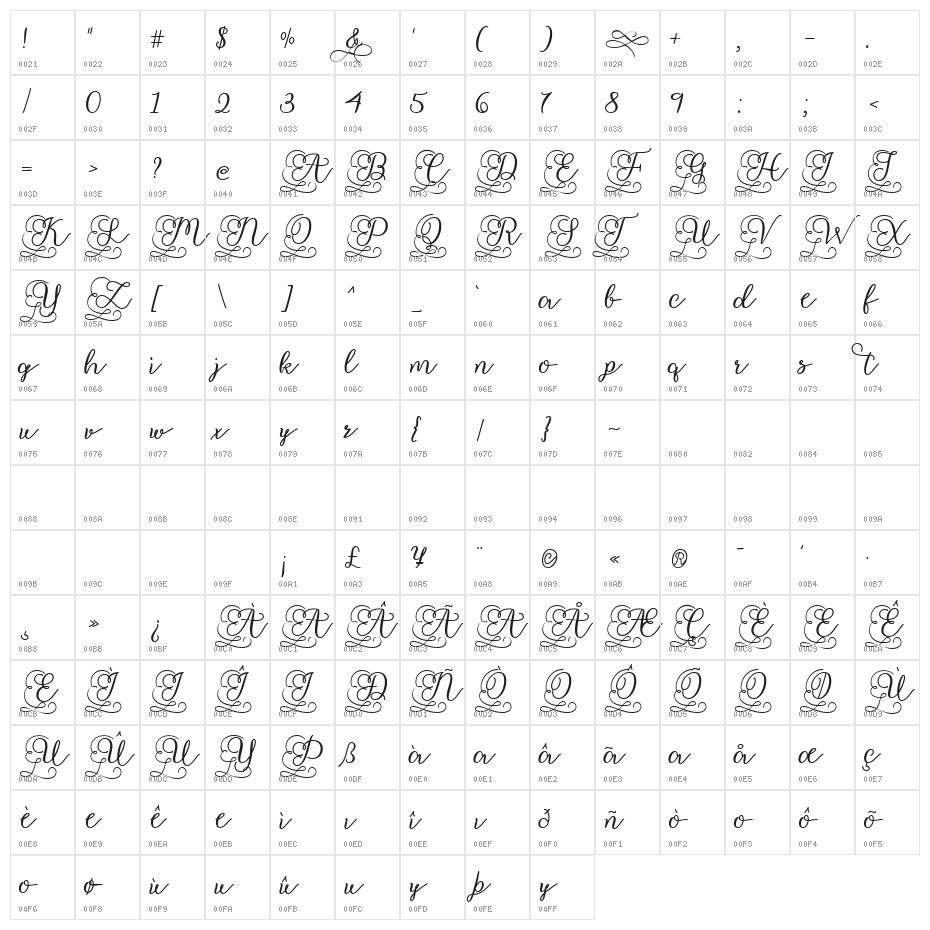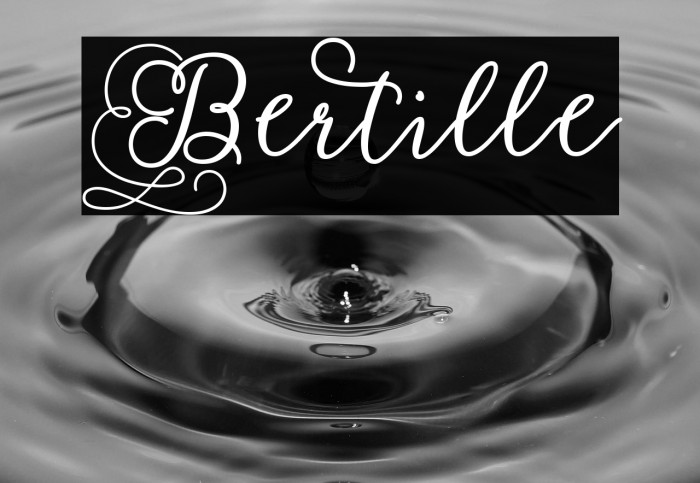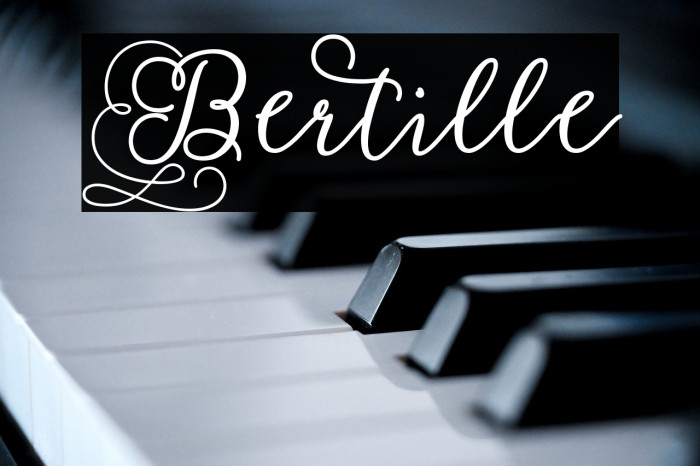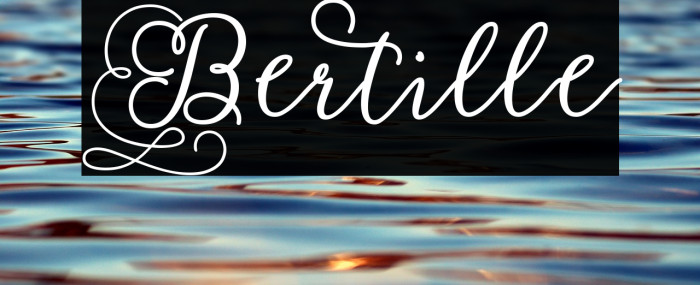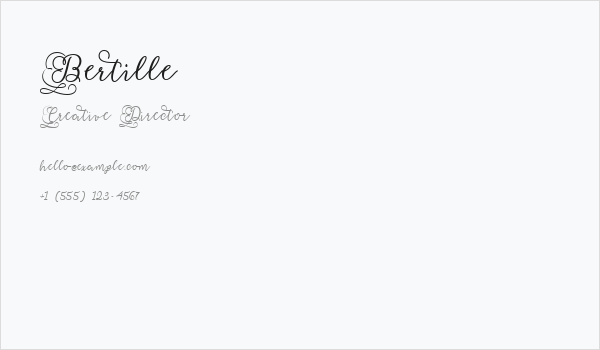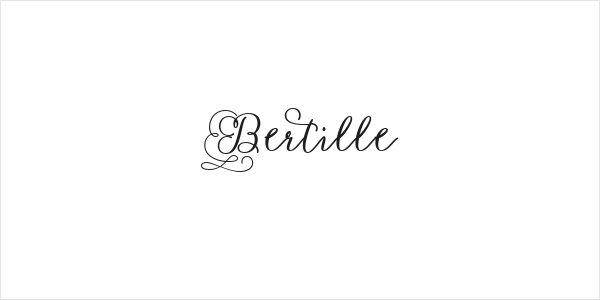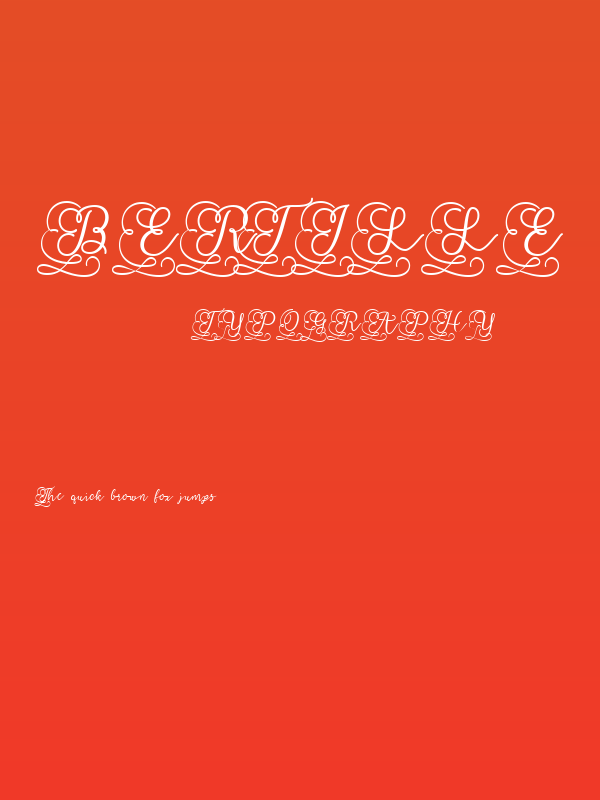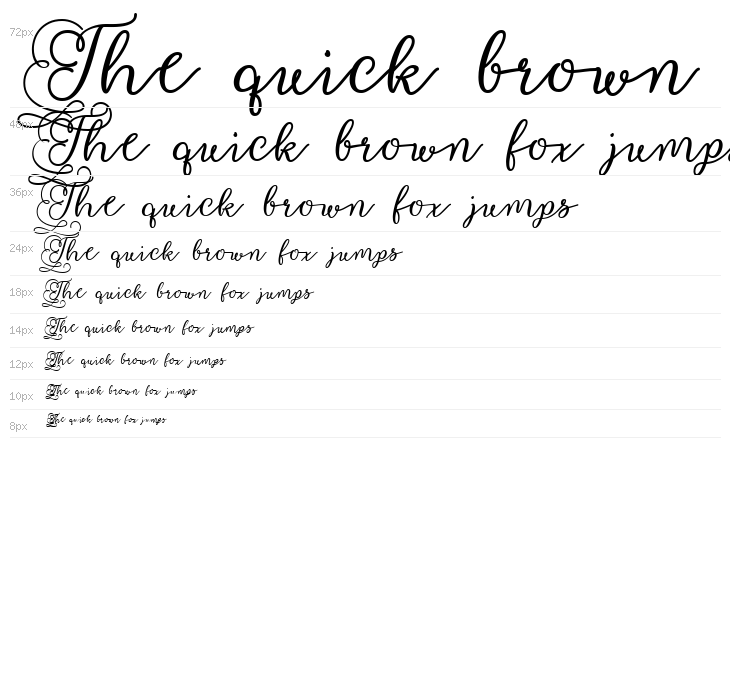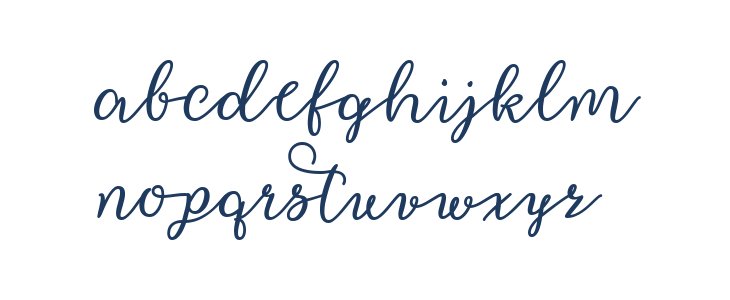
Bertille Font
Bertille Description
This elegant script font features intricate swirls and flourishes, giving it a sophisticated and ornate appearance. The uppercase letters are particularly decorative, with elaborate loops and curves that add a touch of luxury and refinement. The lowercase letters maintain a flowing, cursive style that complements the uppercase, creating a harmonious balance. Numbers and special characters are designed with the same attention to detail, ensuring consistency throughout. This font is perfect for projects that require a touch of elegance and class, such as wedding invitations, formal event programs, or high-end branding materials.
| Use Case | Logos, Invitations, Decorative Text |
| Proposed Projects | Ideal for wedding invitations, luxury branding, formal event programs, and elegant stationery. |